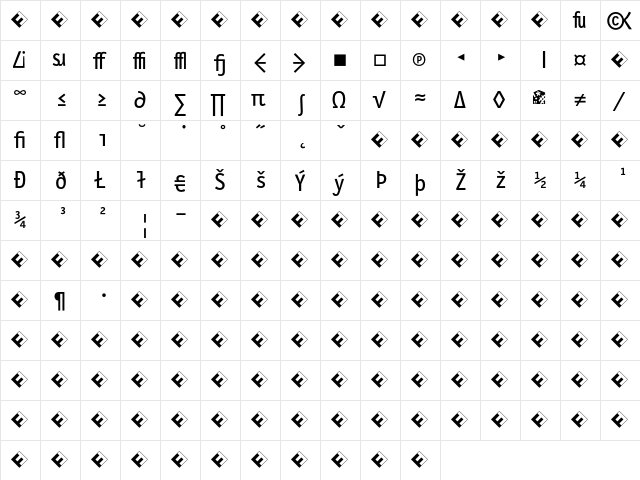
LetterGothicSlang Expert
Design Context for LetterGothicSlang Typeface
LetterGothicSlang has the quiet confidence of well-executed sans-serif typography: versatile, unobtrusive, and dependable at any size.
Font Pairing: Works well alongside a characterful serif or display font that can carry the expressive load while LetterGothicSlang handles the functional copy.
Pro Tip: Use LetterGothicSlang for UI labels, navigation, and short-form body copy where clean legibility is the priority.